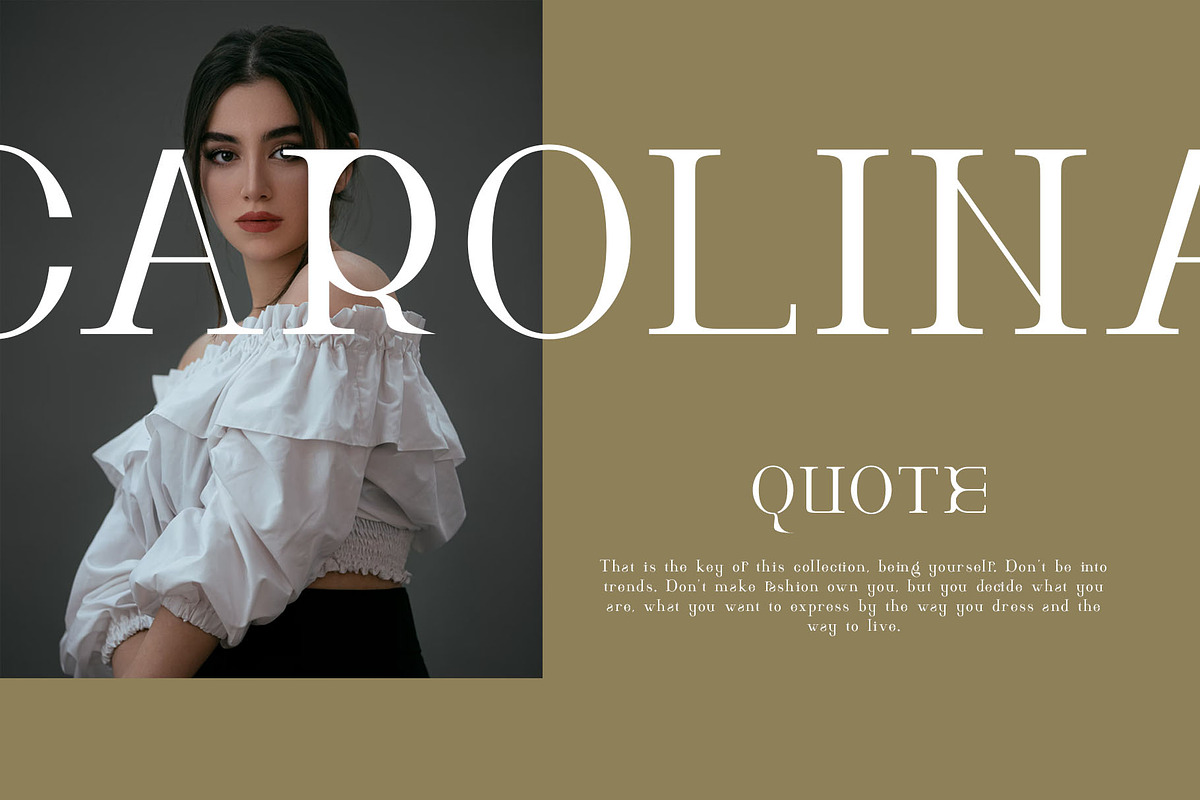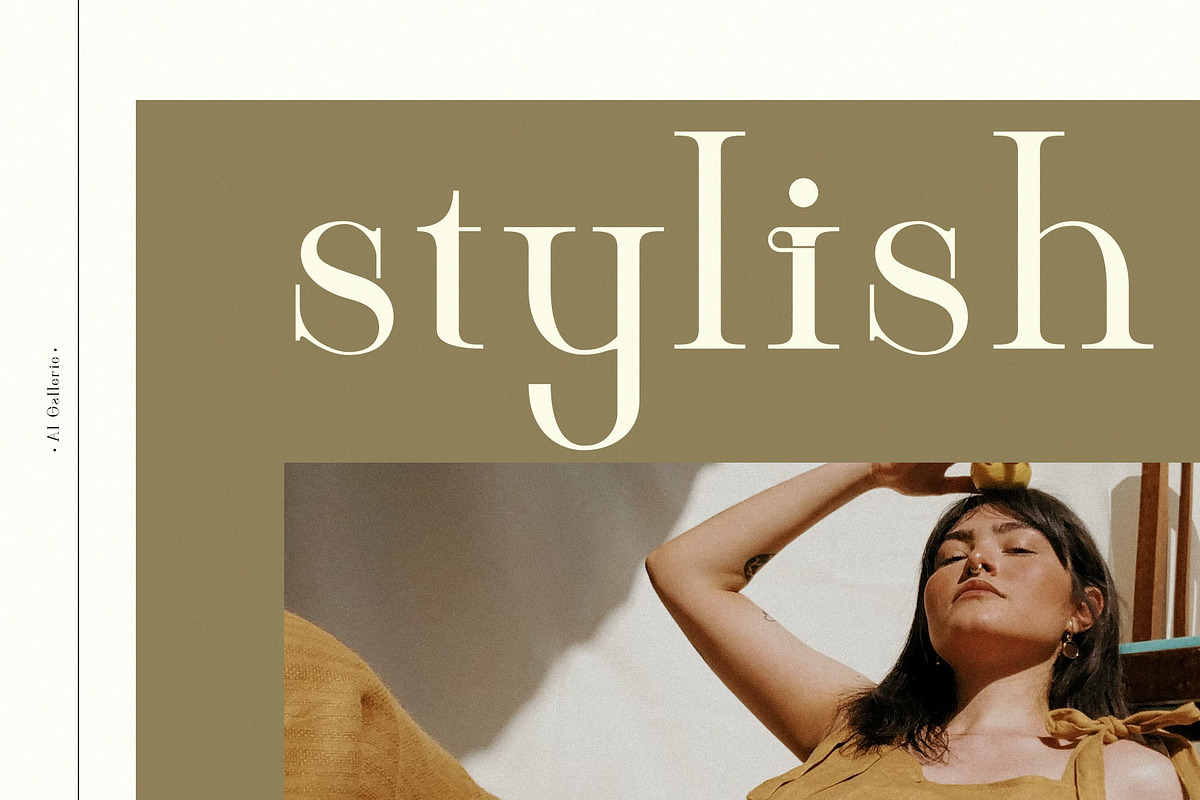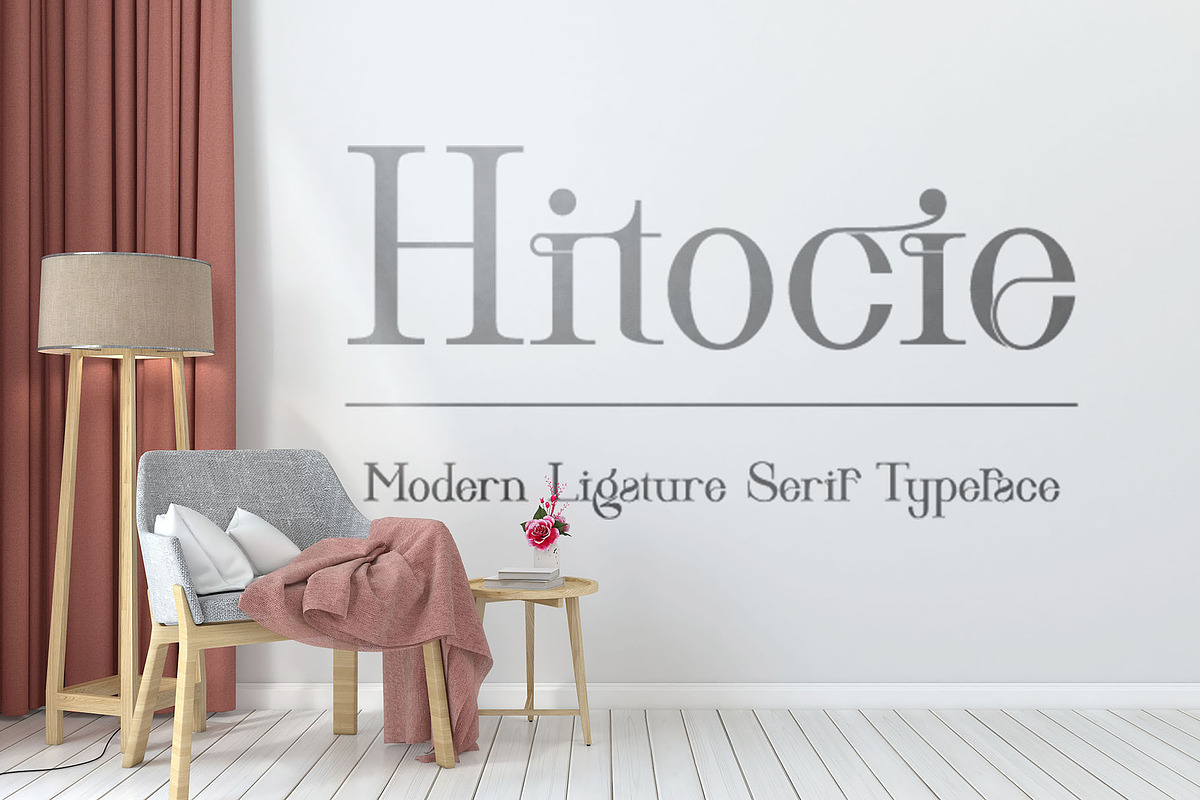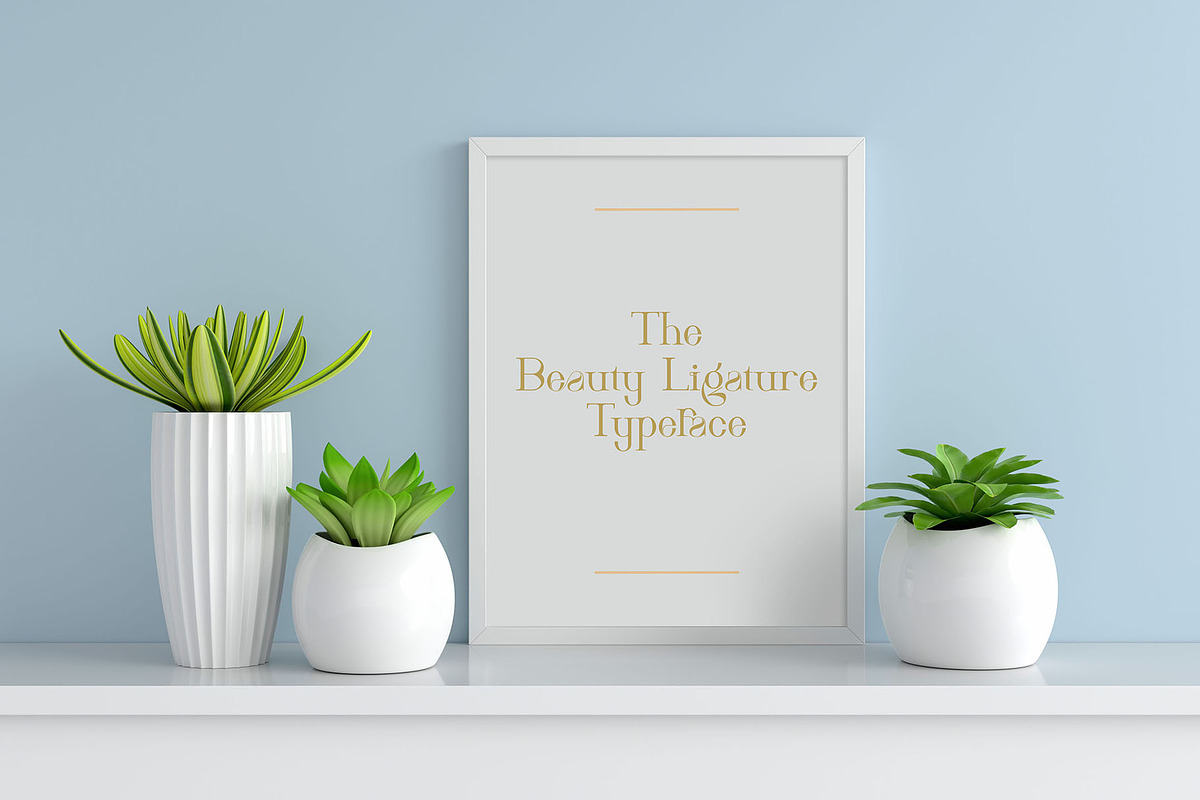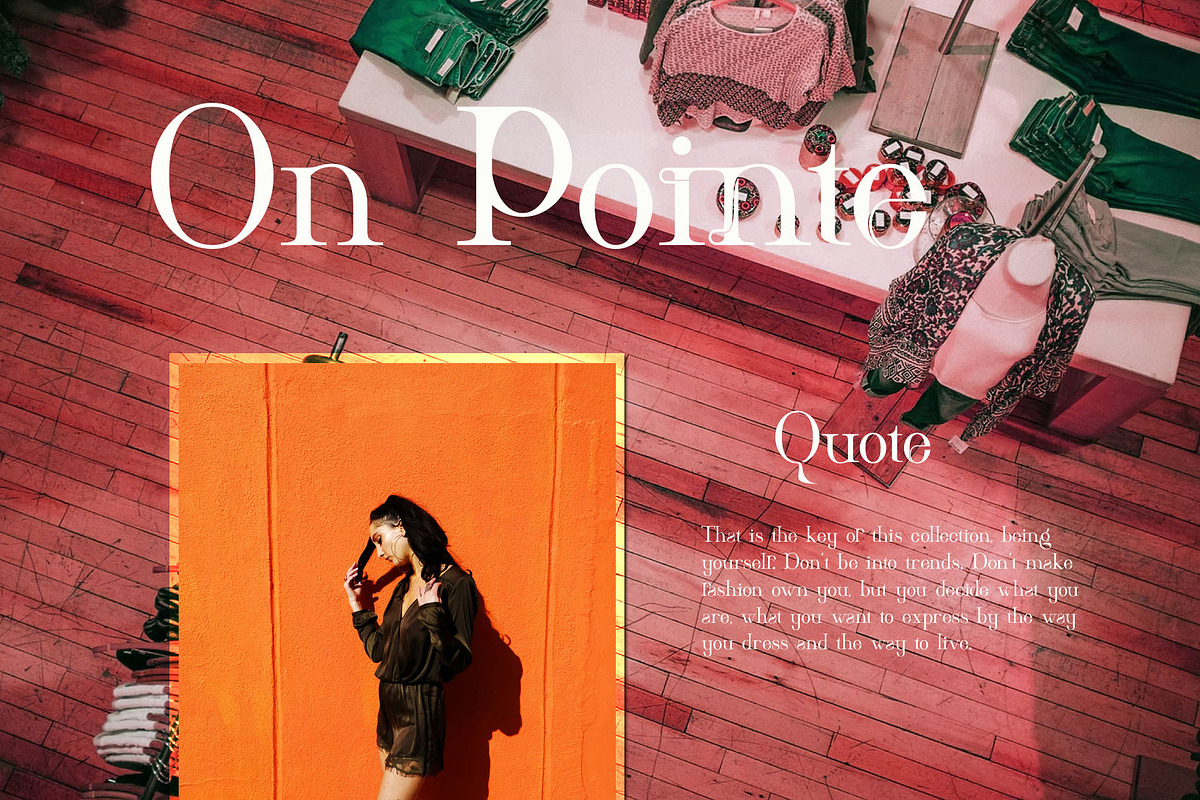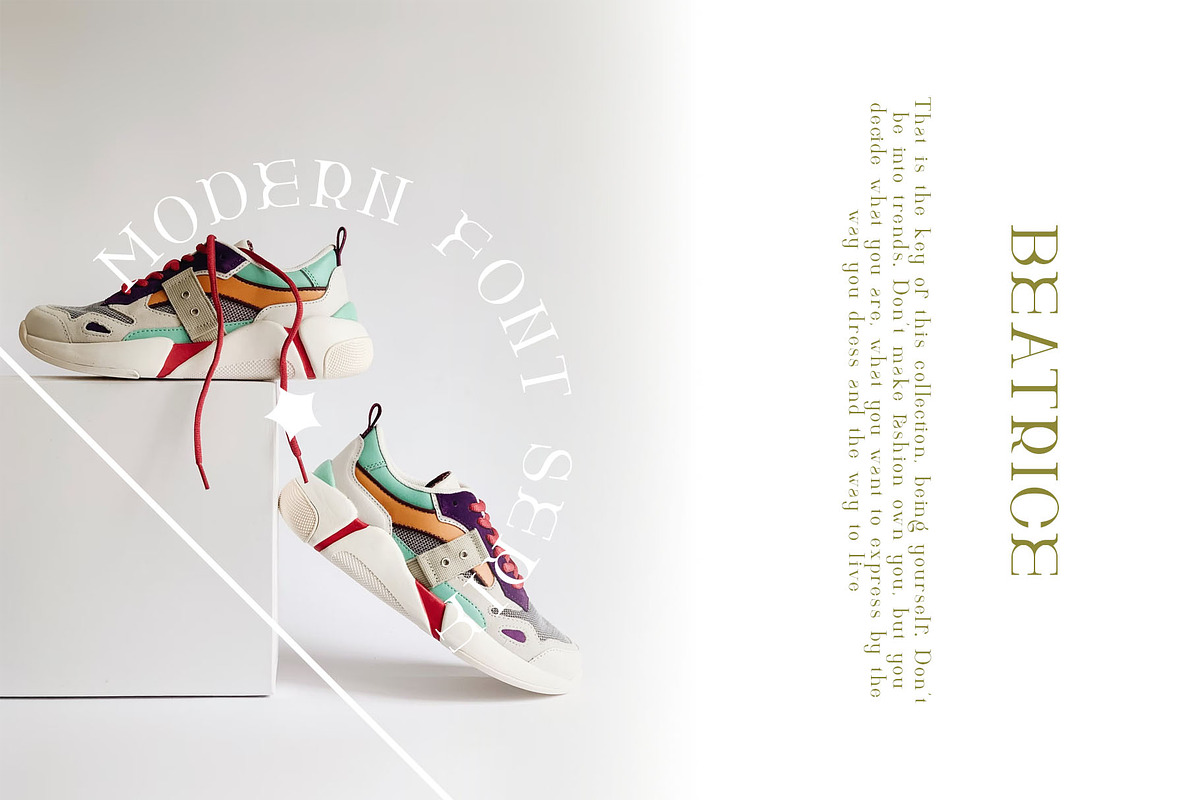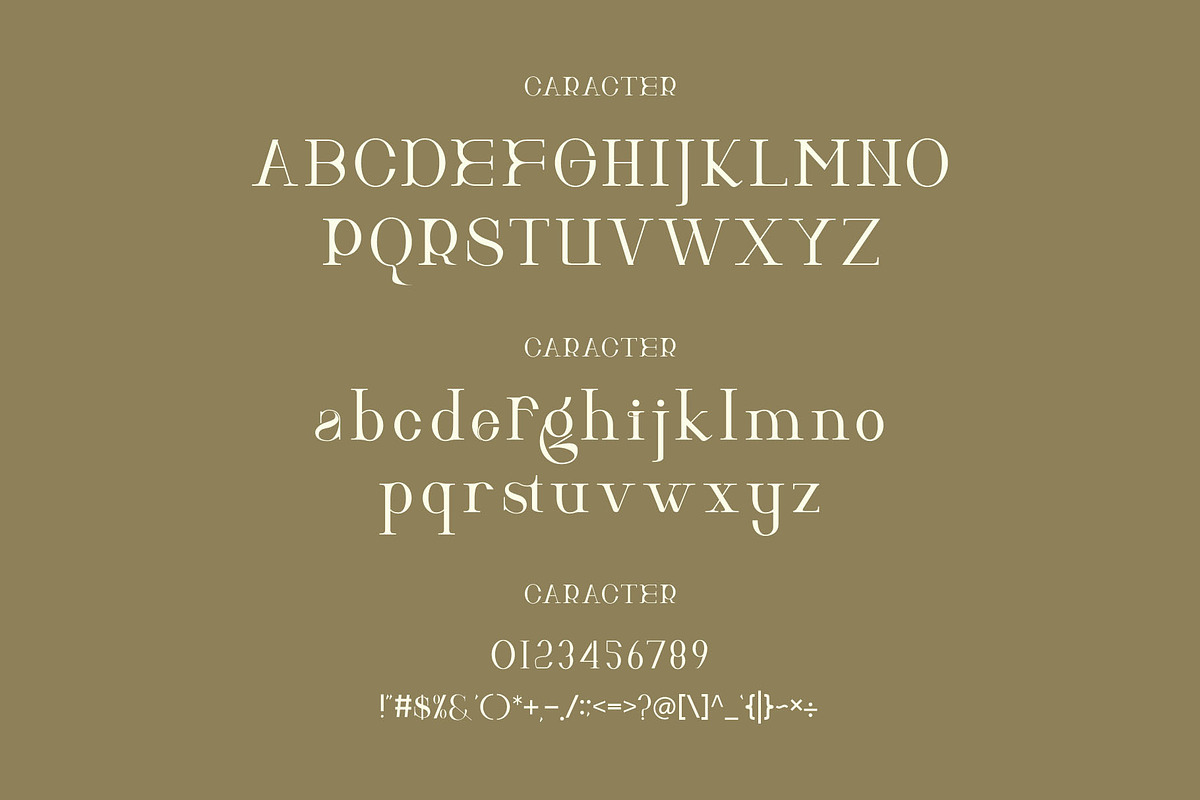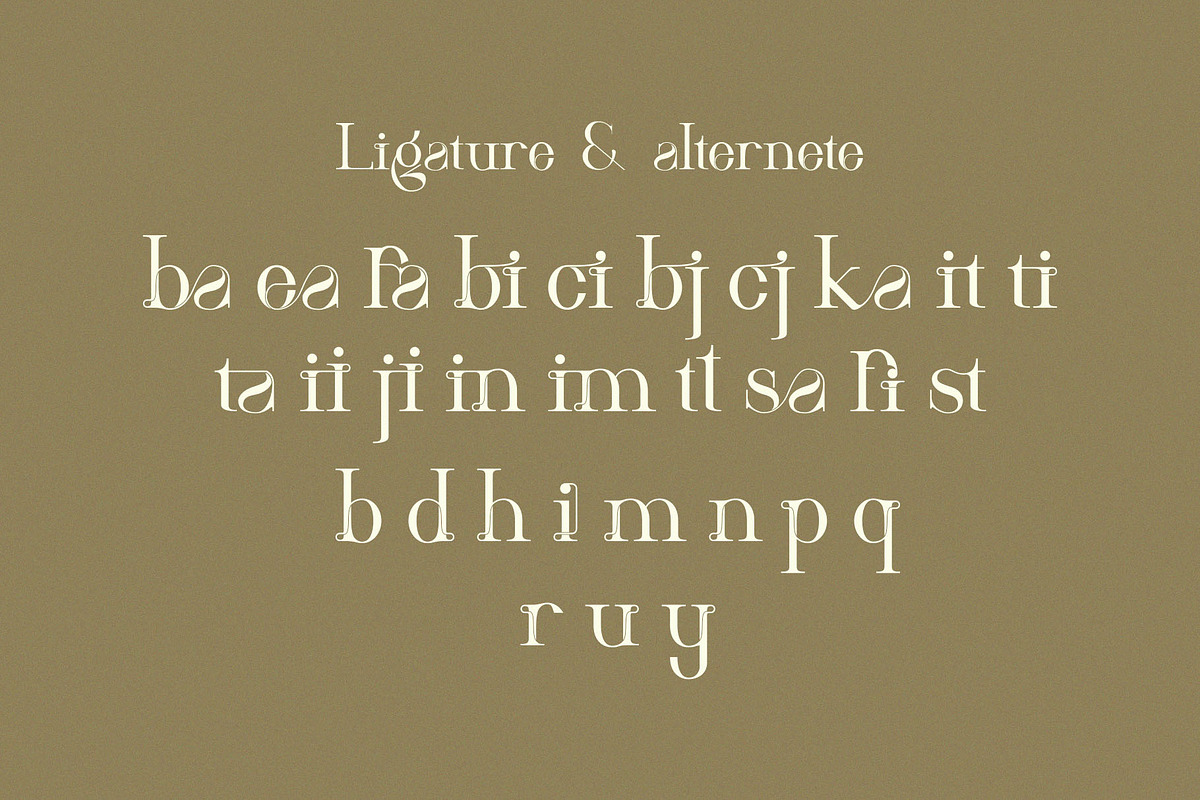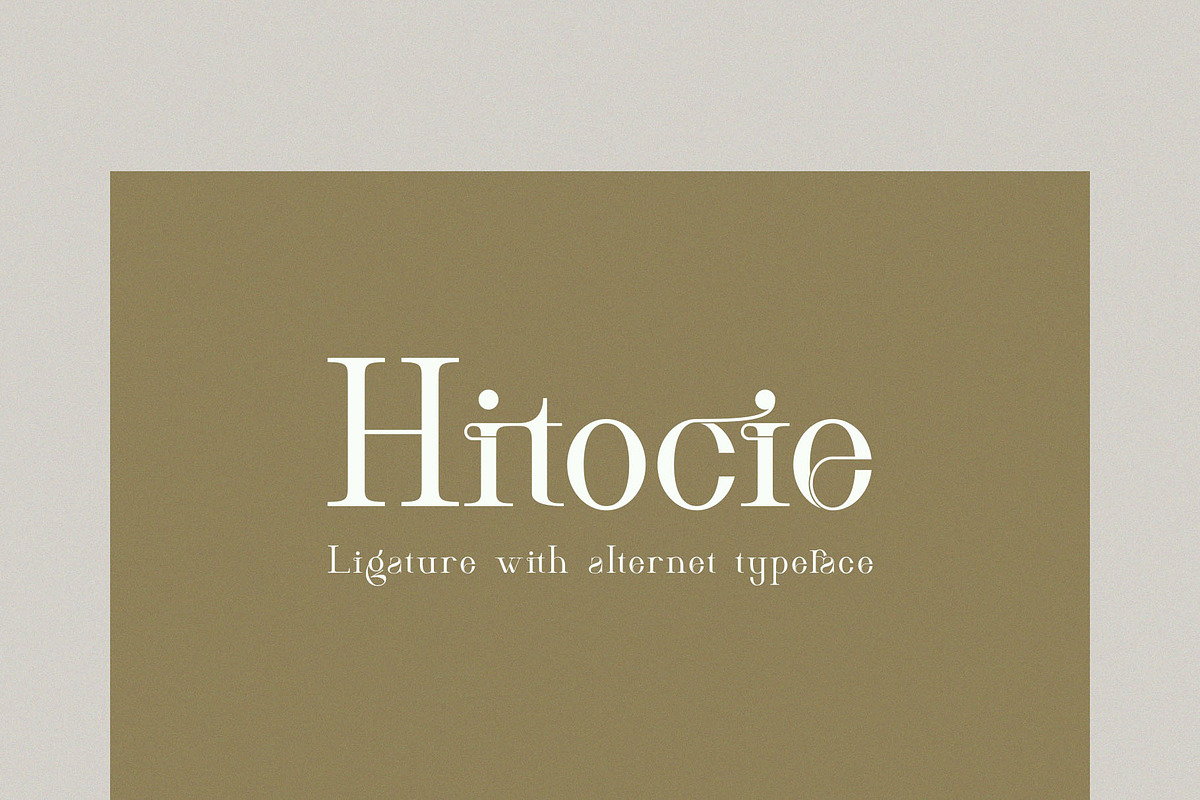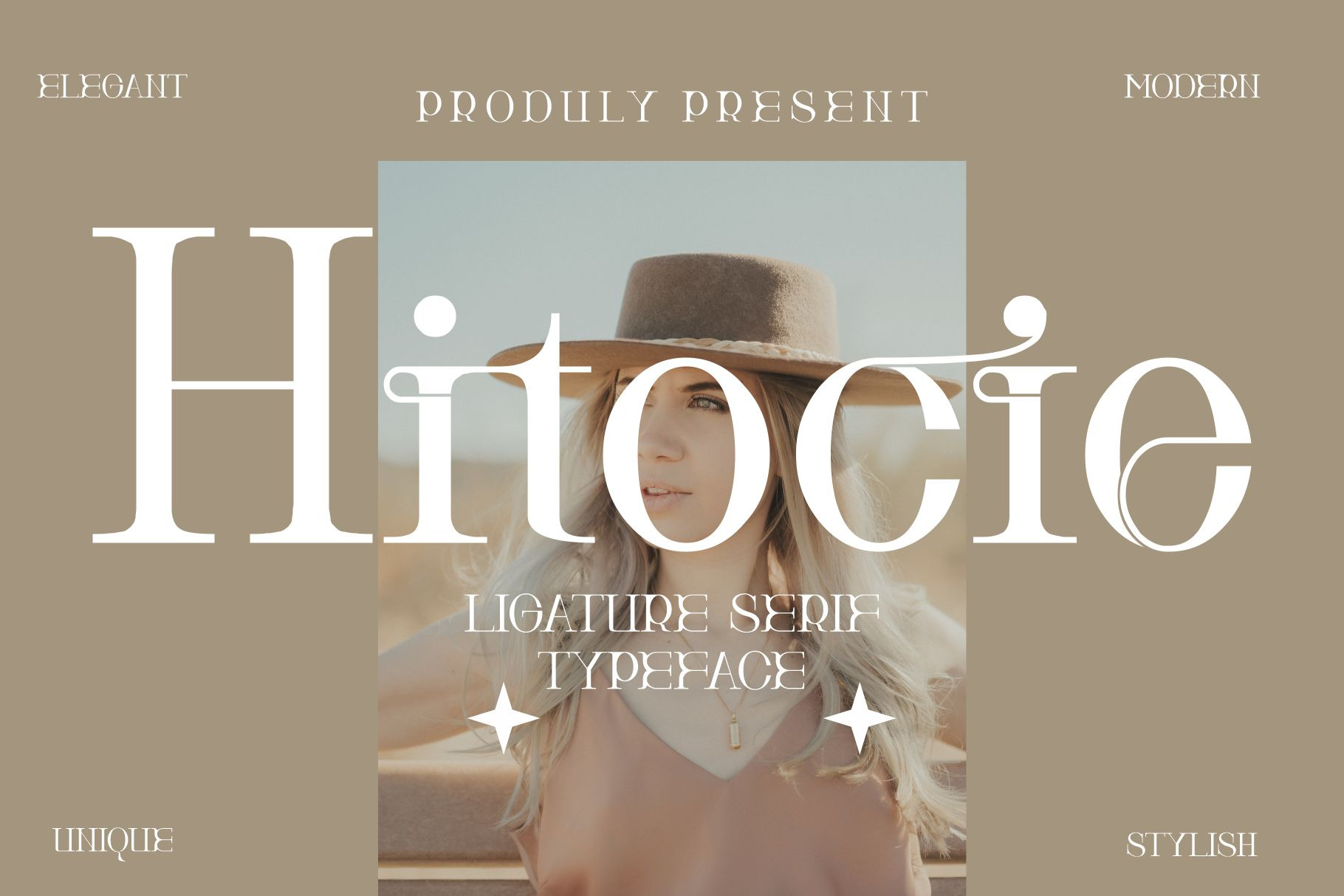
Hitocie Ligature Serif Typeface
Hitocie is a elegant and classy serif typeface – This font is both modern and nostalgic and works great for logos, magazine, social media. Already matched up and ready to be used together for your next design! For those of you who are needing a touch of elegant, stylish, classy, chic and modernity for your designs, this font was created for you!
Hitocie was built with OpenType features and includes ligatures,alternates, numbers, punctuation, and it also supports other languages.